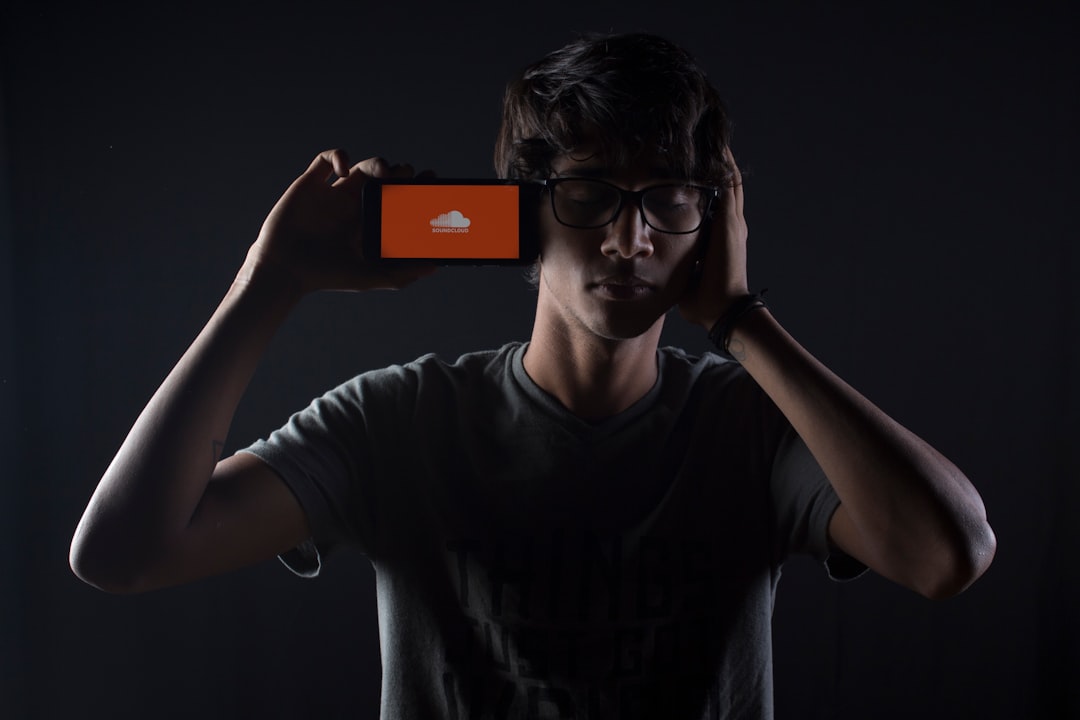
What Font Does SoundCloud Use?
Quick answerSoundCloud pairs its orange cloud mark with a “SoundCloud” wordmark set in a friendly, slightly rounded sans-serif that reads as approachable and creator-first. The brand uses a custom rounded sans rather than a stock font. The closest free alternatives are Nunito, Mulish, and Inter.
The soundcloud font is one of the more recognizable identities in audio because of its warmth: where many tech logos go cold and geometric, SoundCloud goes soft and human. That choice mirrors its identity as a home for independent artists, producers, and podcasters uploading directly. In this guide we break down the logo, the reported brand typeface, and the free fonts that get you closest. For more in this series, start at our famous brand fonts hub.
What font is the SoundCloud logo?
The SoundCloud wordmark is custom lettering, not a downloadable typeface. The letters in “SoundCloud” use a lowercase-friendly, gently rounded sans-serif with soft corners, generous curves, and even stroke weights. Nothing is sharp or aggressive — the terminals are smooth and the bowls of letters like the “o”, “d”, and “u” feel open and approachable. Sitting beside the instantly recognizable orange cloud icon, the type is intentionally understated so the mark and the brand’s signature orange do most of the recognition work.
What is SoundCloud’s brand typeface?
Across the app, web player, and marketing, SoundCloud has generally been reported to use a custom or rounded humanist sans-serif system tuned for friendliness and screen legibility. As with most platforms, exact font names should be treated as reported rather than officially confirmed, since SoundCloud has evolved its interface type through multiple redesigns. The consistent thread is the rounded, welcoming sans-serif feel — a deliberate contrast to the harder geometric sans many competitors favor.
It is worth noting how much of SoundCloud’s identity lives in its waveform UI rather than in type alone. The orange amplitude bars, the inline timestamped comments, and the play button are doing heavy lifting, so the typography can afford to stay quiet and supportive. That is a useful lesson for anyone studying brand systems: when an interface has a strong signature visual, the font’s job is to recede and stay legible, not to grab attention. SoundCloud’s rounded sans does exactly that, framing artist names, track titles, and play counts without ever competing with the waveform.
Free fonts that look like the SoundCloud font
You cannot license SoundCloud’s trademarked wordmark, but the rounded-sans mood is easy to recreate with free open-source families. Here is how to map each design role.
Use case SoundCloud uses Free alternative
Logo / wordmark Custom rounded sans lettering Nunito or Mulish (SemiBold)
Headlines Friendly rounded sans Nunito
Body / UI Humanist sans for screens Inter or Mulish
Nunito is the standout match because its softly rounded terminals echo the SoundCloud feel directly, while Inter keeps interface text crisp and neutral — see our Inter font guide. For sibling breakdowns, compare how Deezer’s font takes a bolder, more vibrant route.
Why does SoundCloud use this kind of type?
SoundCloud’s whole proposition is approachability: anyone can upload a track, comment inline on a waveform, and reach listeners without a label. A rounded, friendly sans-serif communicates exactly that openness — it feels inviting rather than corporate, and it lowers the barrier for first-time creators. Soft letterforms also pair naturally with the bright orange brand color and the cloud iconography, reinforcing a sense of creativity and community. Rounded sans-serifs read as modern but warm, which is precisely the tone a creator-first platform wants to project.
To recreate that feel in your own project, lean on the rounding rather than the boldness. Set headings in Nunito at a medium weight, keep generous line spacing, and avoid all-caps treatments, which fight the soft, conversational mood. Pair it with a neutral body sans so long descriptions and comments stay easy to read. The goal is approachability: a SoundCloud-inspired system should feel like an open invitation to upload and share, never like a polished corporate brochure, and your type choices are the fastest way to signal that tone.
Can I use the SoundCloud font for my own project?
SoundCloud’s name, cloud logo, and wordmark are protected trademarks, so you cannot reuse them for your own brand, app, or merchandise. What you can do is reach for openly licensed rounded sans-serifs like Nunito or Mulish to capture a similar warm, friendly tone in your own original work. Before publishing commercially, double-check the specific font license; our font licensing guide explains the difference between desktop, web, and app embedding rights so you avoid surprises.
Is the SoundCloud font rounded or sharp?
The SoundCloud wordmark is gently rounded, with soft corners and smooth terminals rather than sharp geometric edges. This rounded quality is central to the brand’s friendly, creator-first feel, which is why free rounded sans-serifs like Nunito and Mulish make the most convincing look-alikes.
Does SoundCloud use the same font as Spotify?
No. SoundCloud leans into a softer, rounded sans-serif feel, while Spotify uses its own proprietary Circular-style geometric sans. Both are sans-serifs, but SoundCloud’s rounded warmth is a deliberate point of difference that suits its independent, community-driven creator positioning.